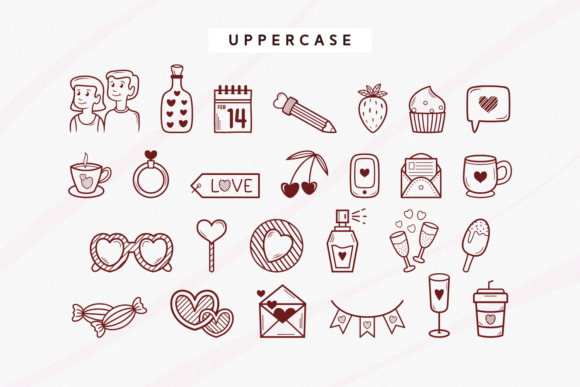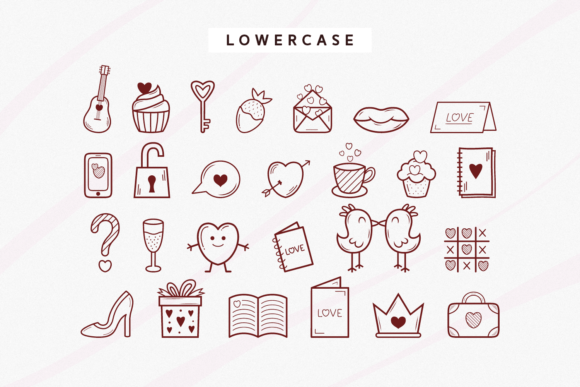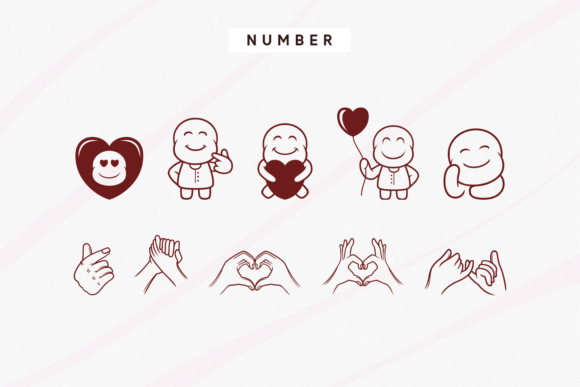
Introduction to Love Seeds Font
As a designer, have you ever found yourself stuck in a creative rut, searching for the perfect element to bring a project to life? I know I have, and it’s often those small, yet thoughtful touches that make all the difference. For Valentine’s Day, or any day you want to express your love, I’ve discovered a hidden gem that’s sure to inspire: the Love Seeds Font.
This adorable dingbats font is a high-quality design resource that’s perfect for adding a sweet and playful touch to your crafty ideas. With a transparent background, you can easily combine it with other elements to create a stunning visual effect. And the best part? It’s available for free download, making it an invaluable resource for designers of all levels.
Whether you’re working on a creative project or simply want to add a personal touch to a gift, the Love Seeds Font is a valuable addition to your design toolkit.
Key Features of Love Seeds Font
- High-quality design resource ideal for creative projects and romantic themes
- Comes with transparent background, allowing for versatile usage and easy overlay
- Includes 6 unique and intricate designs, perfect for adding a touch of elegance
- Available in 300 DPI resolution for crisp and clear display
- Supports a wide range of languages, making it a great choice for multilingual projects
- Designed to be highly customizable, allowing users to adjust size, color, and style to suit their needs
Honest Review: Love Seeds Font
I recently stumbled upon the Love Seeds Font and I must say it’s a high-quality design resource that’s perfect for creative projects. The font has a beautiful, elegant feel to it, making it suitable for a wide range of applications.
- ✨ The font is highly customizable, allowing users to easily adjust the size, color, and style to suit their needs.
- ✨ The transparent background option is a great feature, giving designers the flexibility to easily layer the font over other design elements.
- ⚠️ The font may not be suitable for bold or dramatic designs, as it has a delicate and subtle feel.
- ⚠️ Some users may find the font to be a bit too simplistic for their taste.
Overall, I’m impressed with the Love Seeds Font and would recommend it to designers looking for a high-quality, elegant font for their creative projects. With its customizable features and transparent background option, it’s an excellent resource for designers who want to add a touch of sophistication to their designs.
How to Use Love Seeds Font
Tips for Getting the Most Out of Love Seeds Font
To get the most out of the Love Seeds Font, experiment with different font sizes, colors, and combinations to create unique designs. You can also use the font in conjunction with other design elements, such as images or shapes, to add visual interest.
Common Use Cases for Love Seeds Font
The Love Seeds Font is perfect for a variety of creative projects, including invitations, posters, and social media graphics. Its unique design and transparent background make it a versatile tool for designers and non-designers alike.
Alternatives to Love Seeds Font
1. Lato Font
Lato is a high-quality, sans-serif font perfect for any design project. It has a clean and modern design that is ideal for websites, magazines, and other creative projects. Lato is available for free download and offers a transparent background, making it easy to integrate into any design.
Lato is a great alternative to Love Seeds Font as it offers a similar clean and modern design, but with a more professional and polished look. It is also highly customizable, making it perfect for designers who want to add a touch of elegance to their projects.